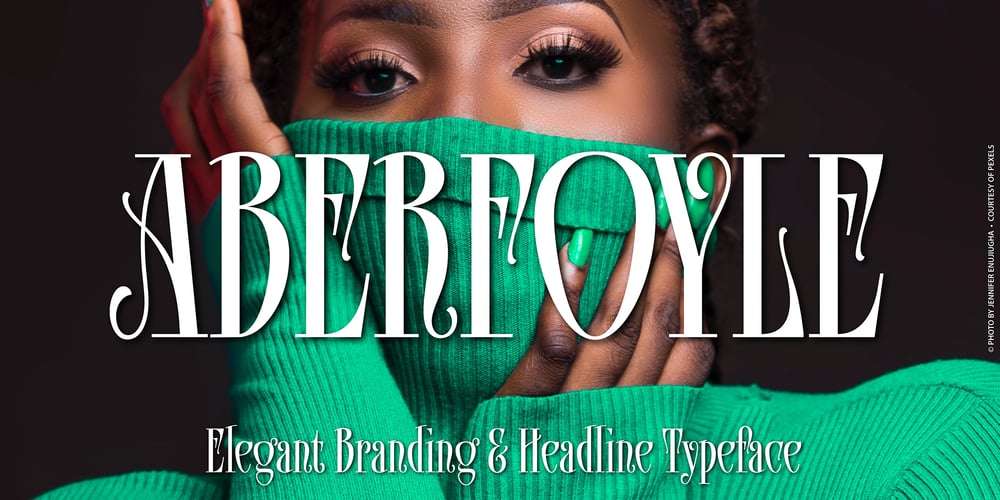
Aberfoyle Font Family was designed by Mott Jordan and published by Mysterylab. Aberfoyle contains 1 styles and family package options. Aberfoyle is an elegant and ornate modern condensed serif. It’s a great choice for unique branding and banners of anything from gourmet food packaging, to high-end accessories and cosmetics, to winter holiday headline vibes. With its old-world flair, it features a wealth of eye-catching details and a whimsical variety in its approach to letter width and shape. Aberfoyle straddles two worlds, referencing historical embellishment traditions, but squarely looking forward into the future of typographic design.